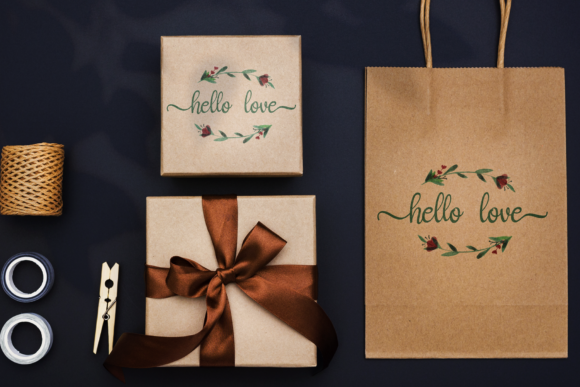
New Christmas Font
db-ku.com - Script & Handwritten -- New Christmas is an amazing handwritten font. It looks attractive and natural! It has cute alternates and swashes and it will take your Holiday projects to the next level!